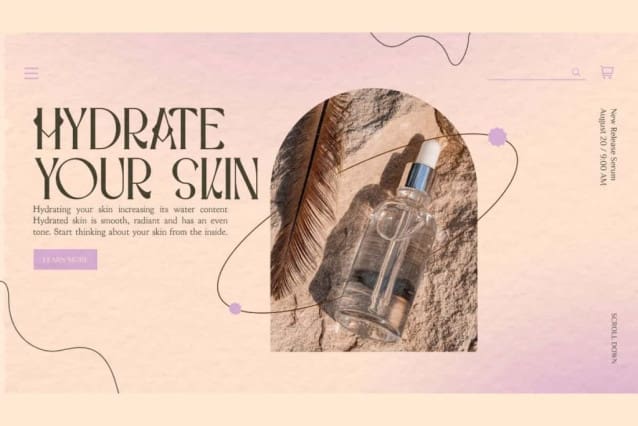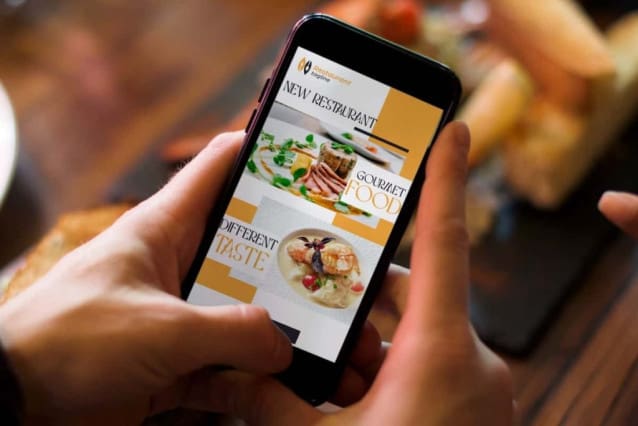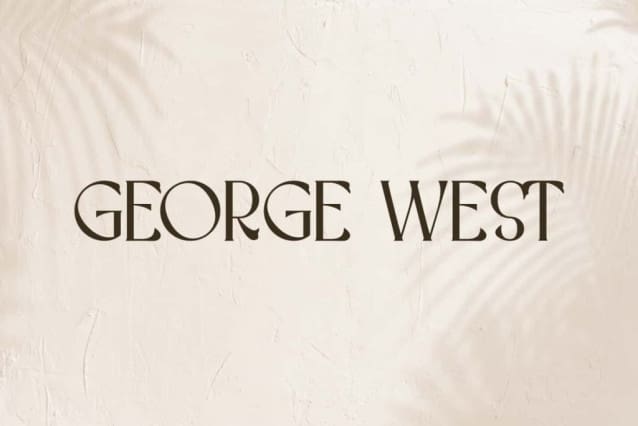
George West Font
George West Font is an elegant and exclusive serif display with a classic touch by VinType Studio. This type of font can be used to add aesthetic value to a design. It is perfect for your creative projects, such as apps, brand logo, brochure, flyer, headers, headline, invitation, logotype, magazine cover, mockup design, packaging, postcards, product label, quotes, stationery, title, website, etc.
George West Font consists of all capital letters, both Uppercase and Lowercase Basic Characters. In addition, this font is also equipped with Numbers, Punctuation and Symbols. This font provides a stylish look and is ideal for business such as accessories and jewelry, advertising, cosmetic, event or wedding organizer, fashion, furniture, graphic design, hostelries, restaurant, skincare, spa lounge, and much more.